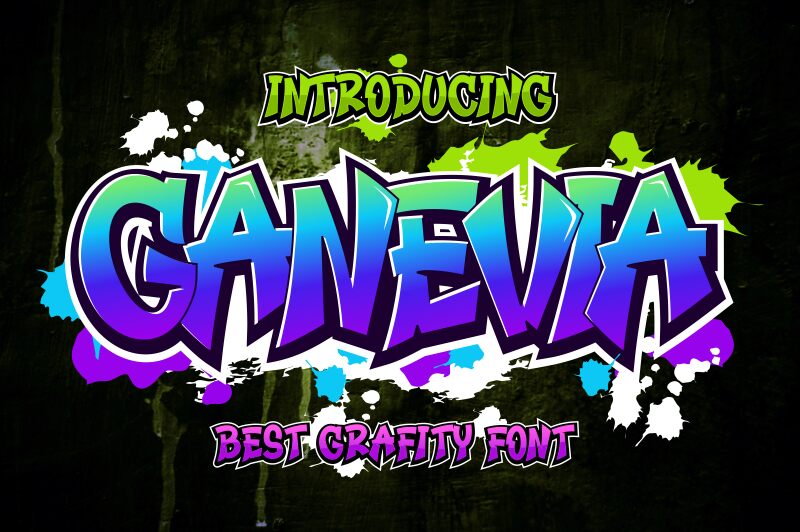
Ganevia Font, designed by Ari Wibowo, is a stunning display font that's perfect for adding bold and striking typography to your designs. With its unique style and bold weight, Ganevia Font is ideal for projects that require a strong visual impact, such as logos, posters, social media graphics, and branding materials. This versatile font is available in a variety of weights and widths, making it suitable for a range of different design styles. Whether you're creating a modern website or designing an eye-catching print campaign, Ganevia Font is sure to make your designs stand out from the crowd.